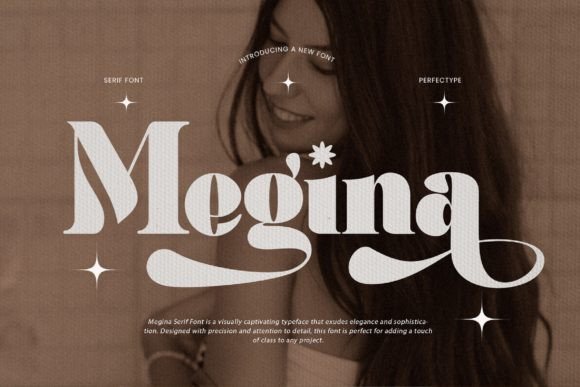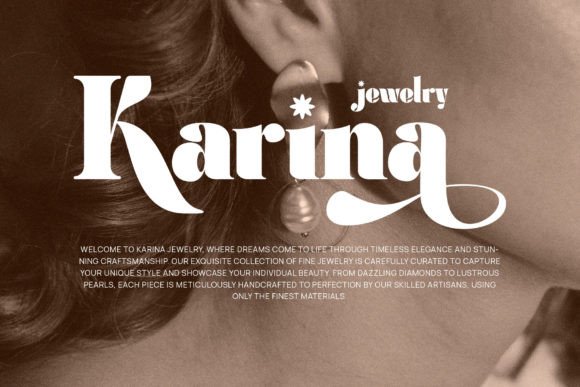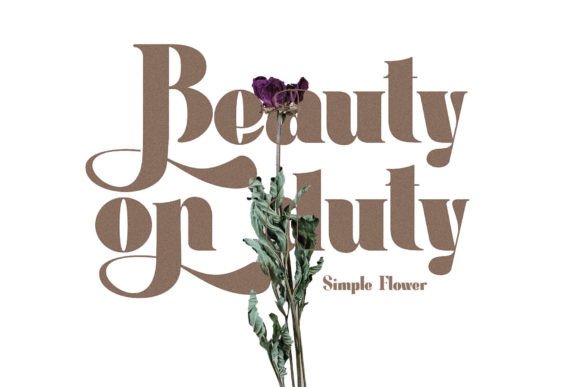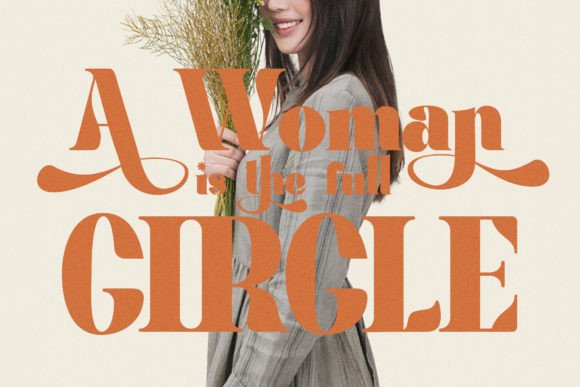
Megina Font: Elegant Serif Typography for Branding & Logo Design
About the Megina Font
Explore the possibilities with Megina Font, a font that offers both beauty and functionality. Is a unique and very elegant font for branding and logo designs
Elegant serif typeface combined with a classy and modern style. This type of font is very suitable for your various needs such as branding projects, logos, wedding designs, social media posts, advertisements, product packaging, product designs, labels, photography, watermarks, invitations, stationery, and any project, created with high level of readability.
Megina Font Usage Examples
Megina Font Example